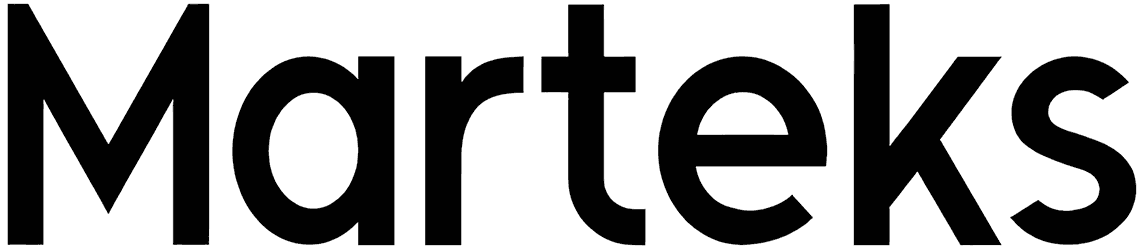
Marteks Font
If you are one of those people who are engaging with bright and approachable patterns, the Markets font can be an excellent choice for your procedure. As a sans-serif font, it conveys an innovative and thriving vibe from its record.
Marteks-A Sans Serif Font FamilyIf we can give you many options then why not? Marteks is a package that will makes you super excited. With this family you will get many options to maximize your designs with stylish fonts. This font is more than just another sans serif font. It encapsulates the essence of luxury and modernity.